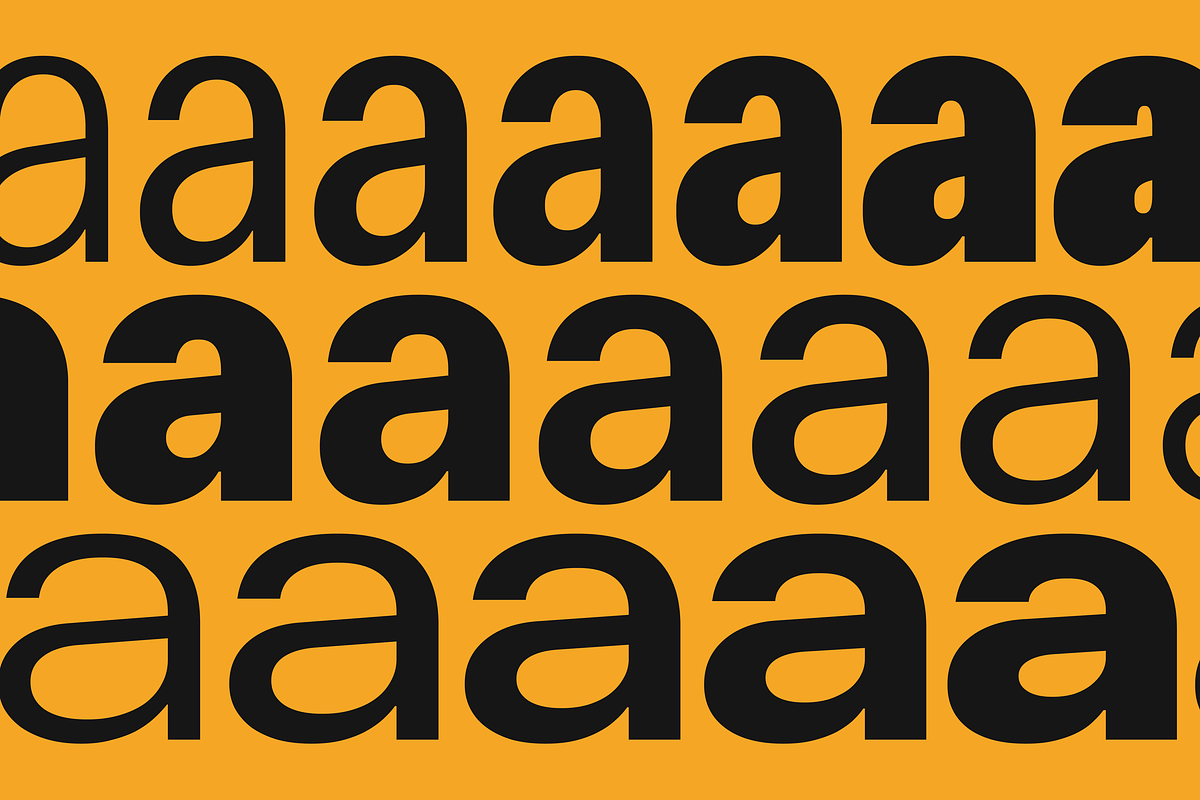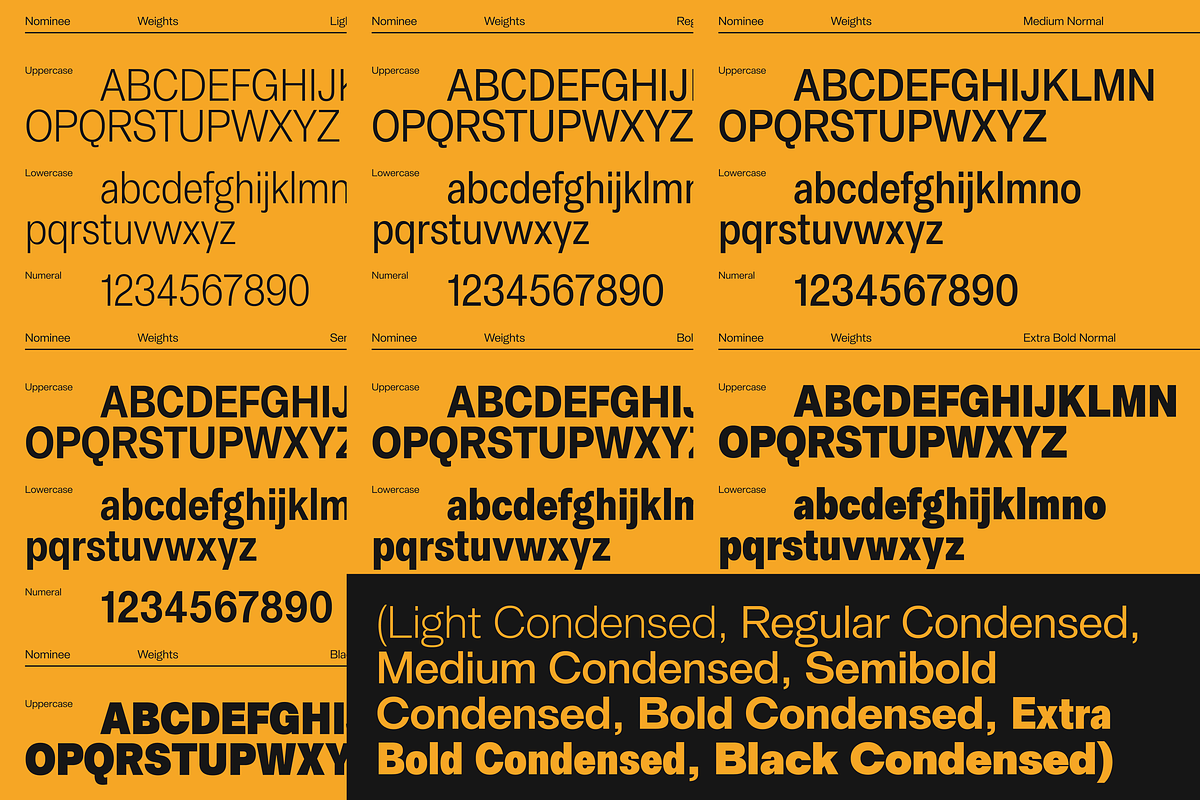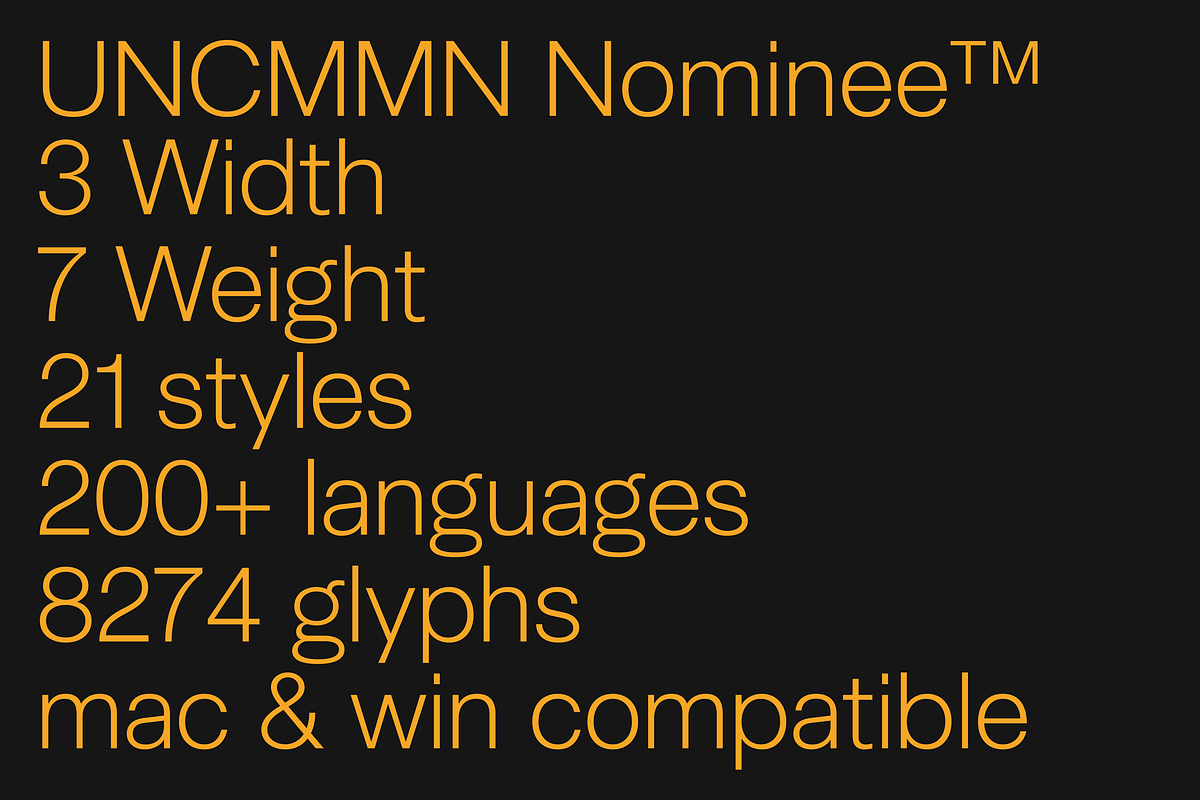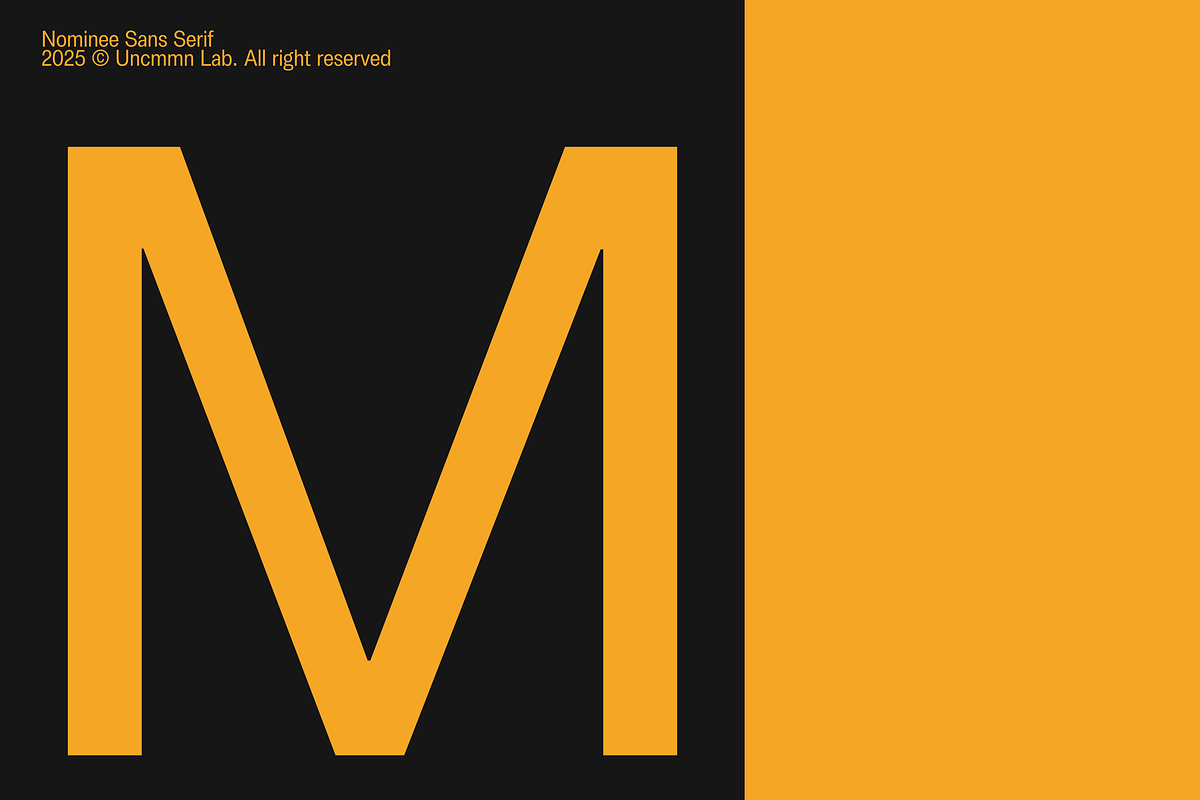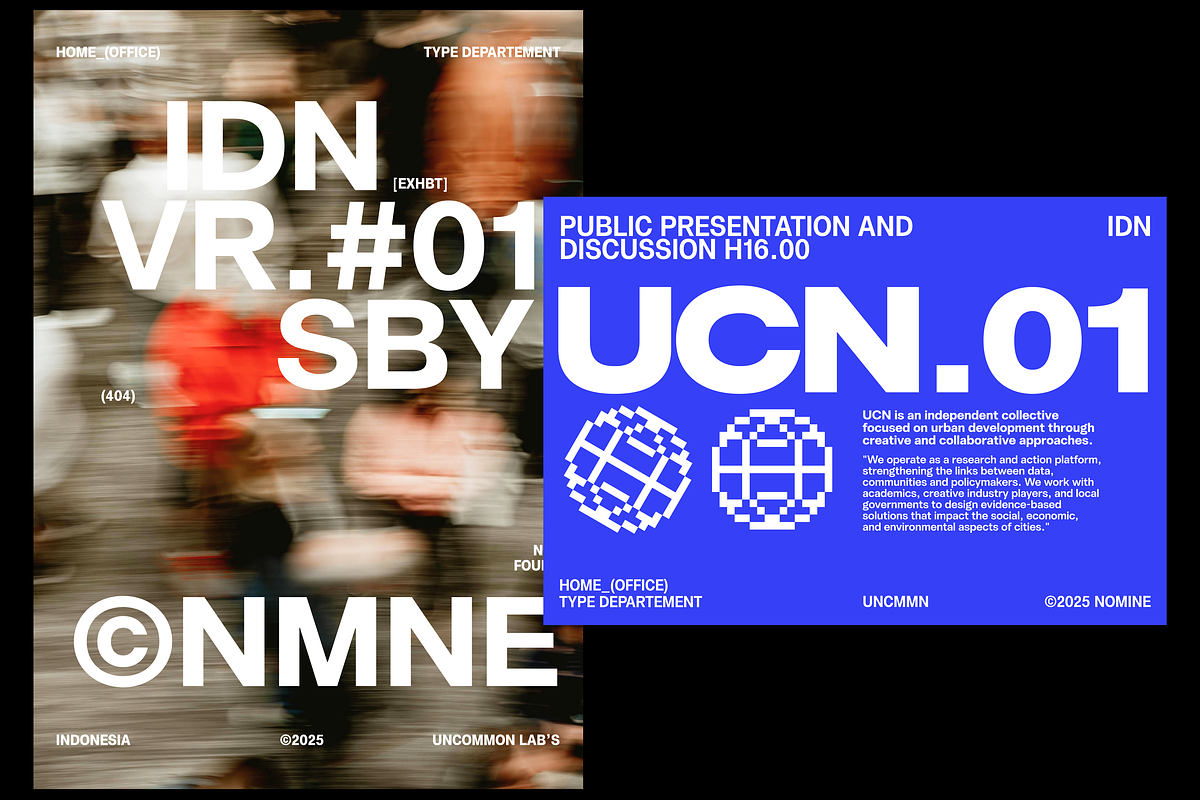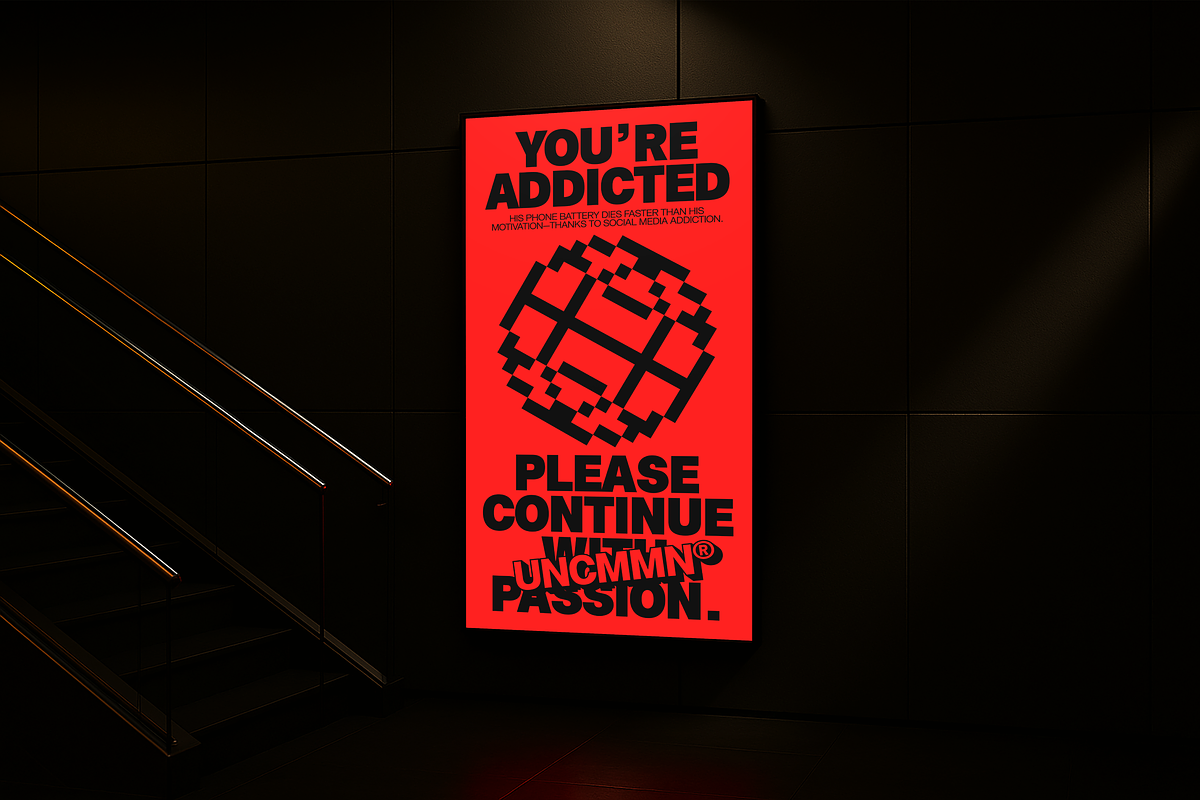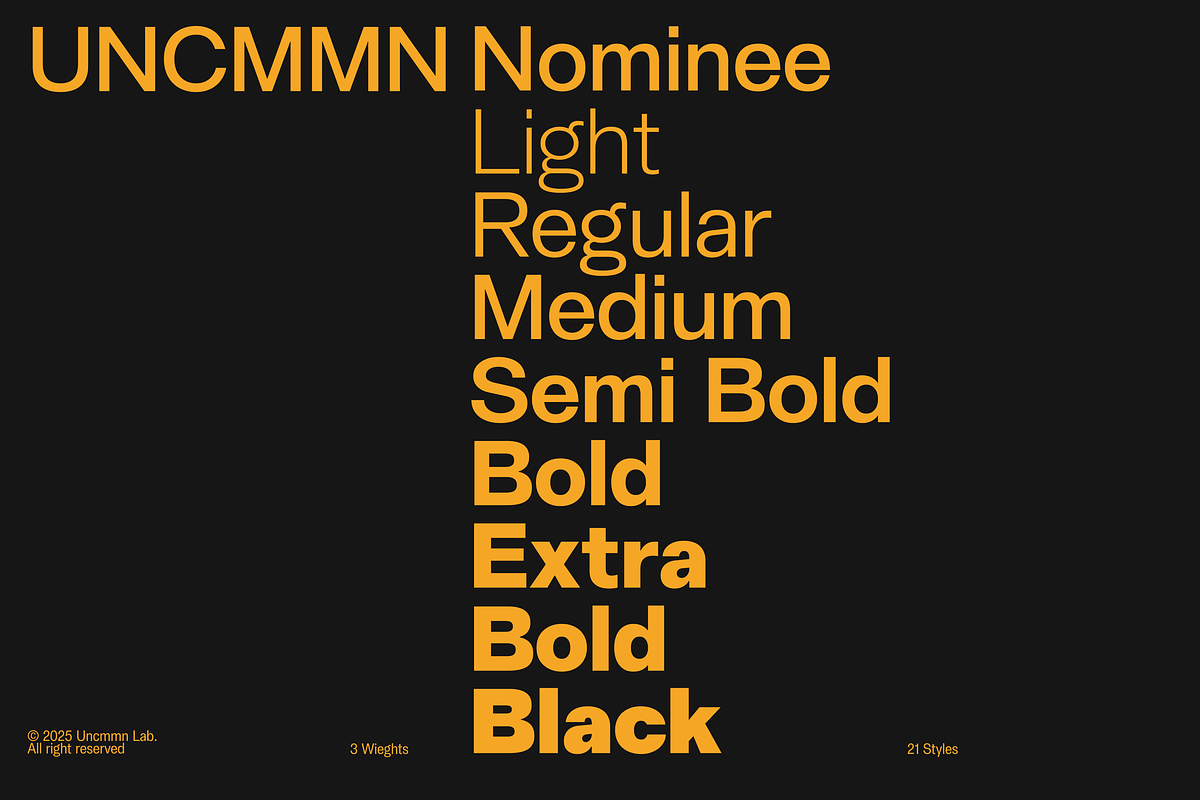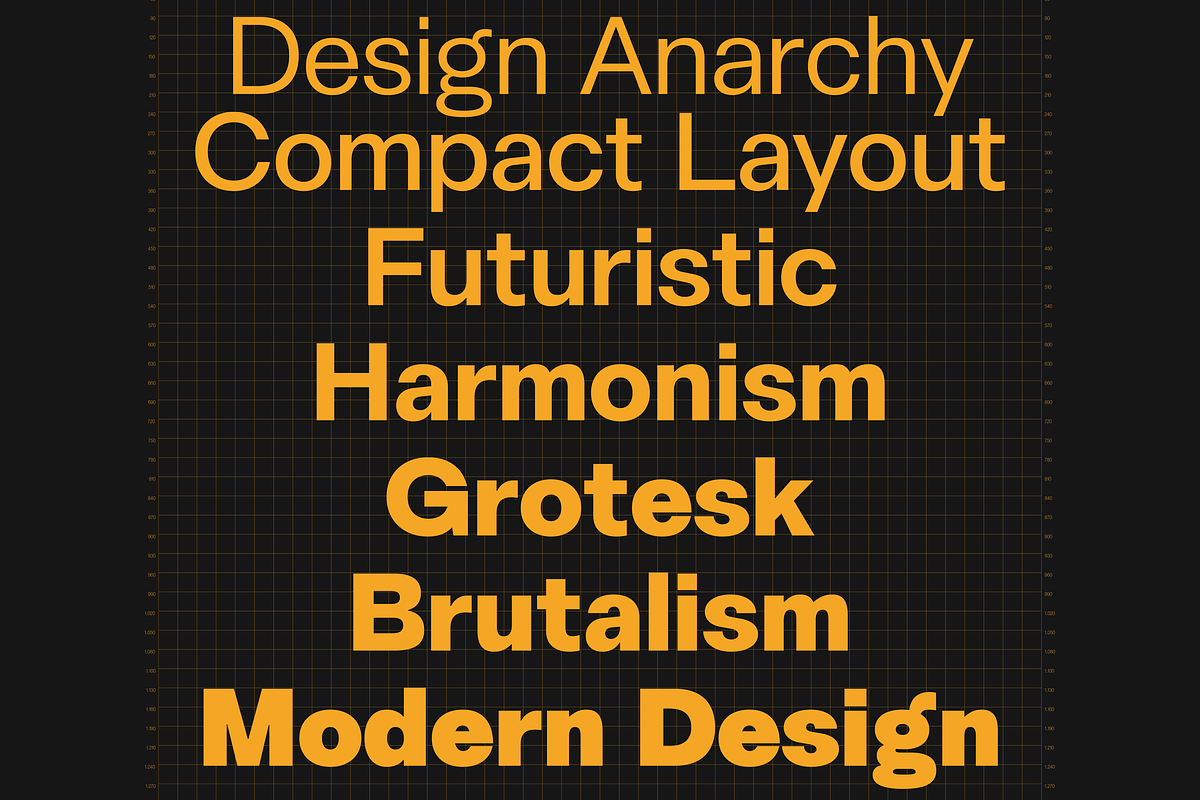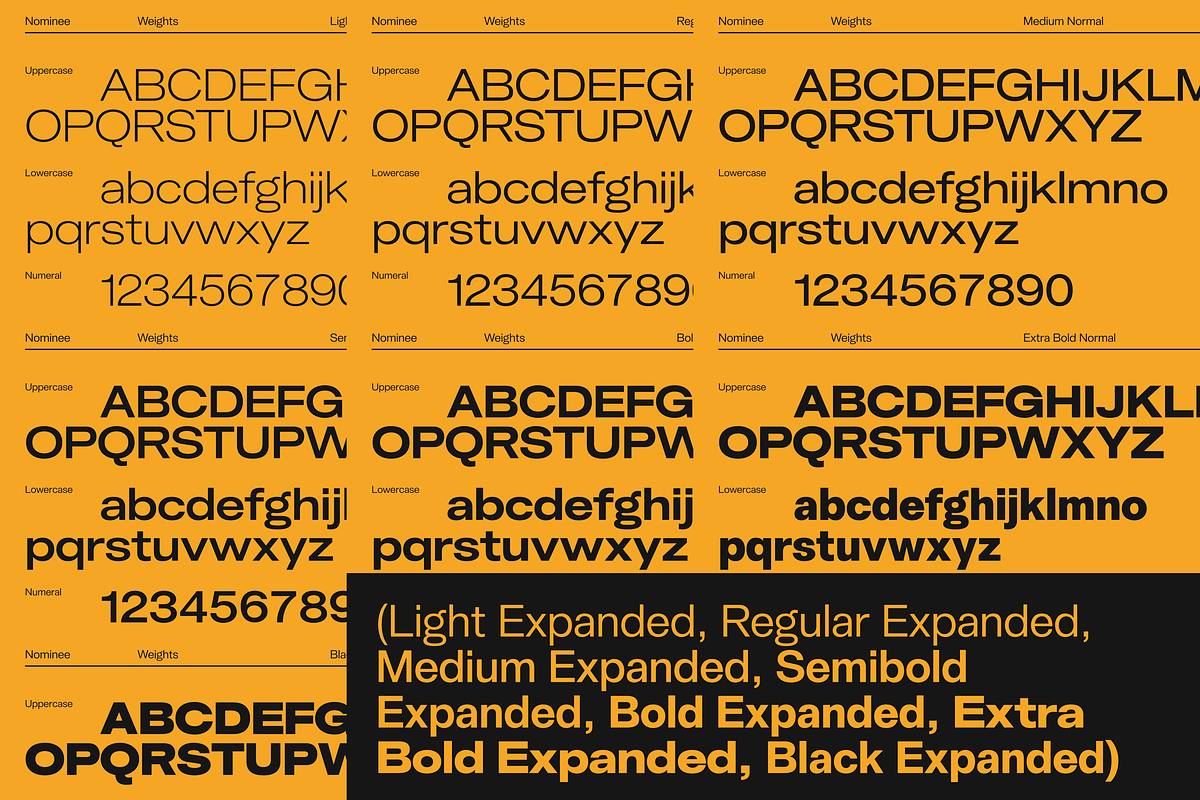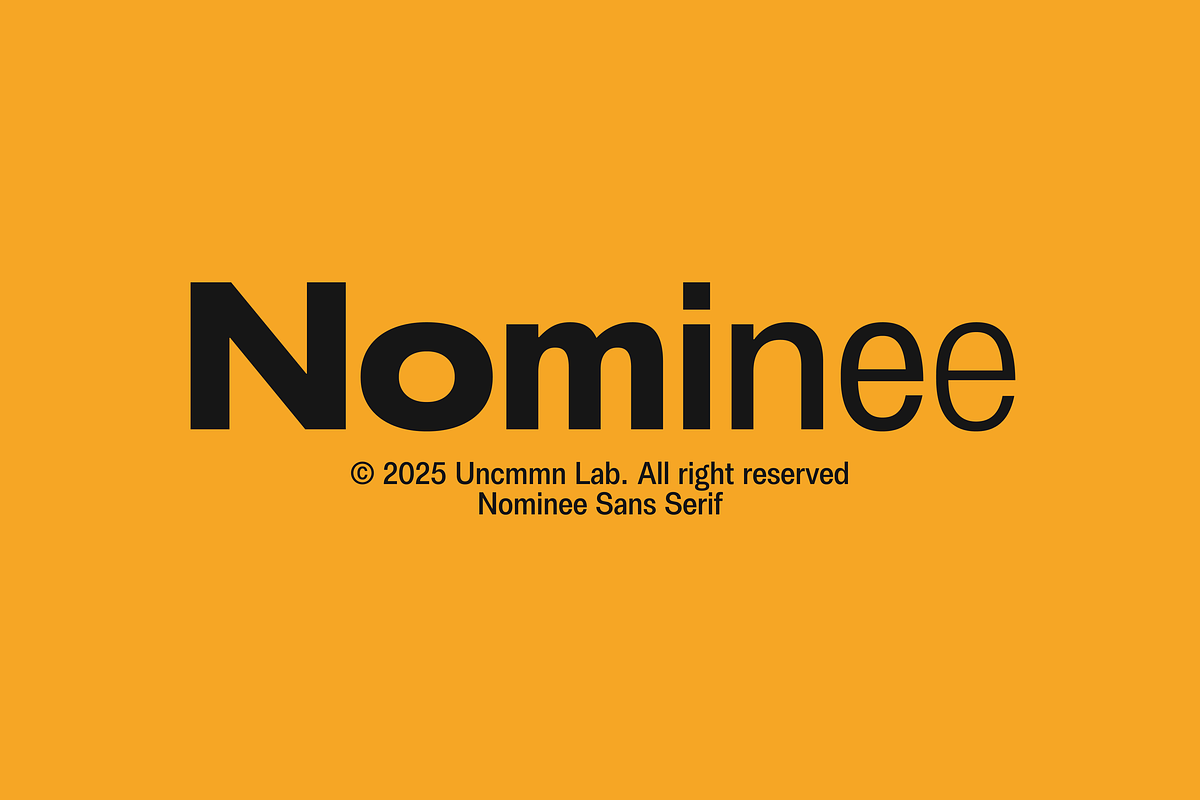
Uncmmn Nominee Sans Serif 21 Style
Nominee is a typeface with 3 width Sans Serif from Light to Black. This project start from October 2024 from the stretch until shaped the solid character to represent the Dynamic Grotesk Sans Serif.